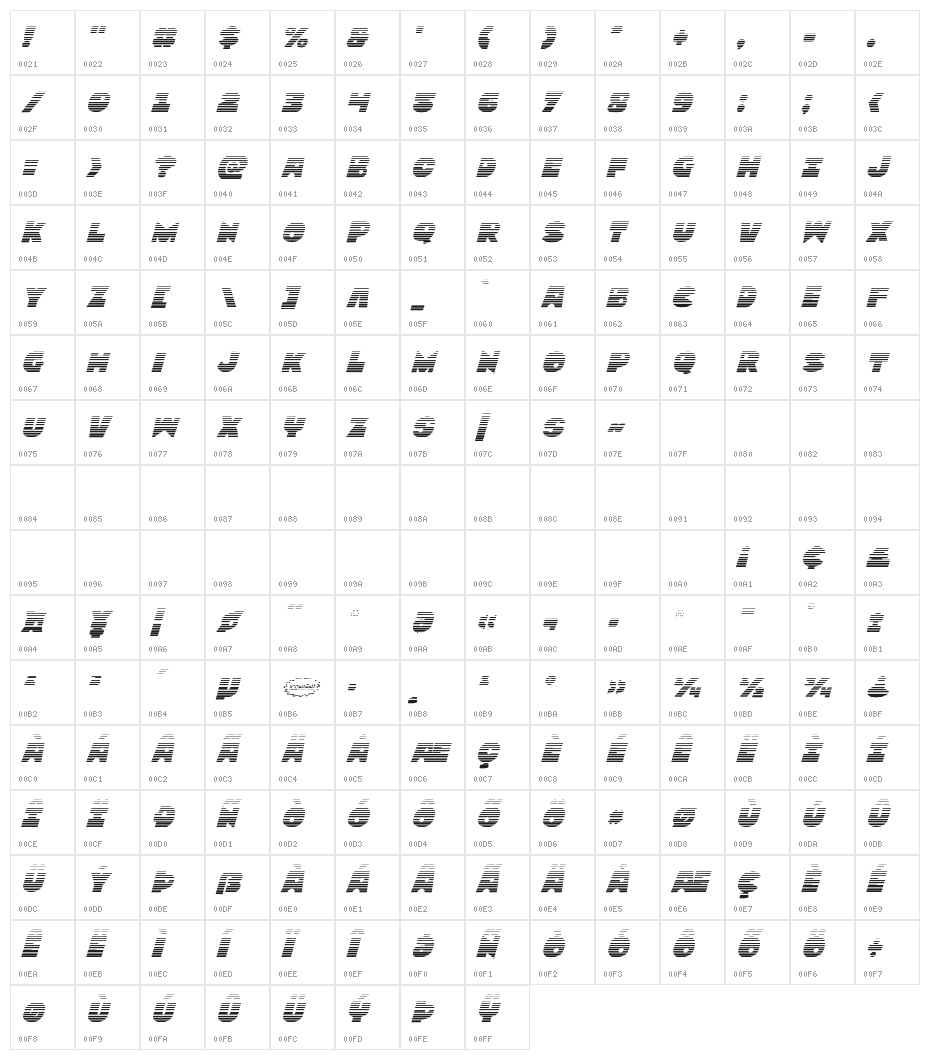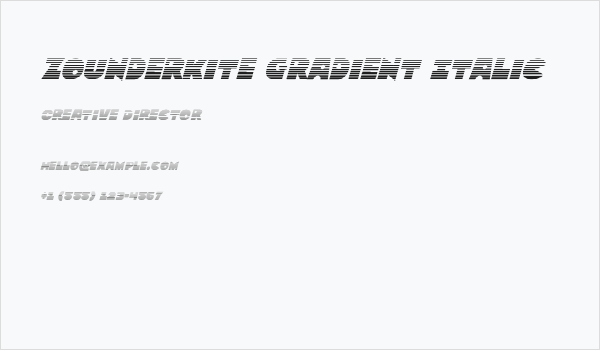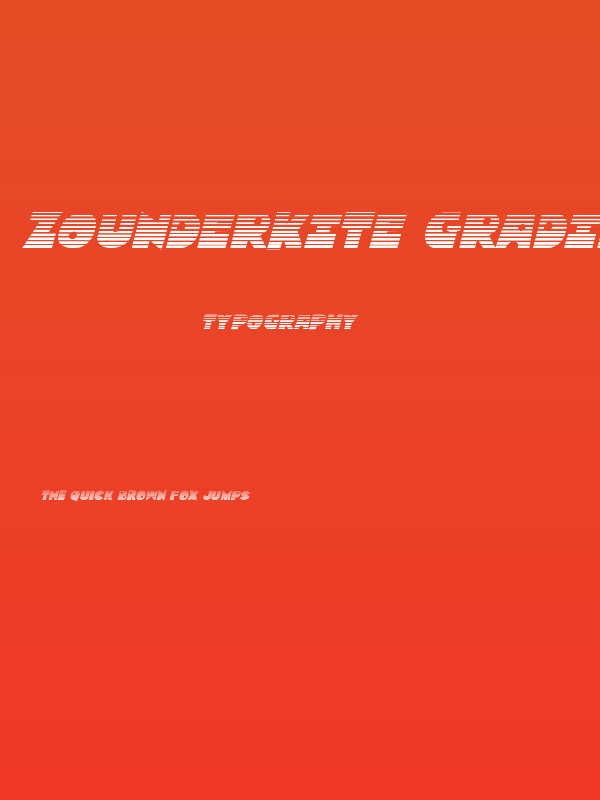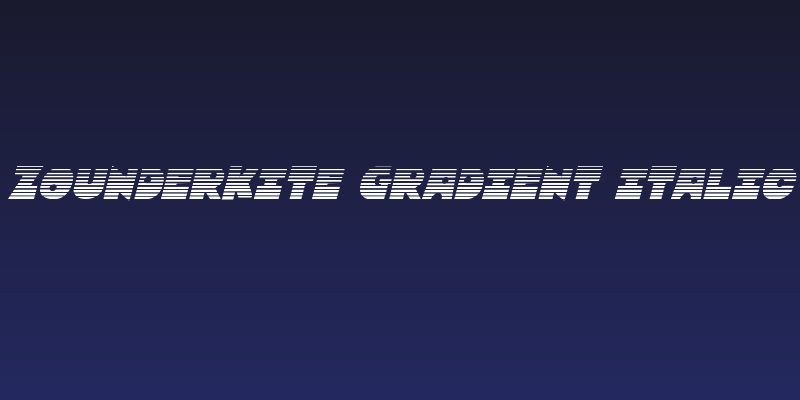
Zounderkite Gradient Italic Font
Zounderkite Gradient Italic Description
This font features a bold and dynamic design with a distinct gradient effect created by horizontal lines running through each character. The italicized style adds a sense of motion and energy, making it stand out. The uppercase and lowercase letters maintain a consistent width, while the numbers and special characters follow the same striped pattern, ensuring uniformity across the typeface. The overall appearance is modern and eye-catching, suitable for projects that require a strong visual impact.
| Proposed Projects | Ideal for branding, sports team logos, dynamic posters, and modern advertising campaigns. |